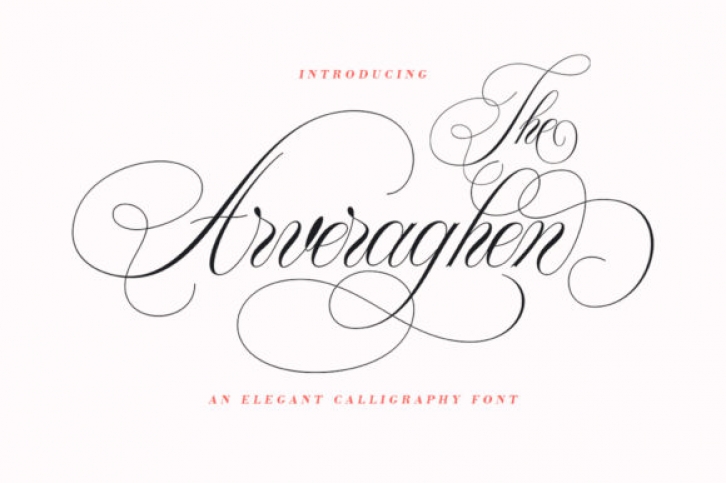
Arveraghen is a delicate and elegant handwritten font. It is PUA encoded which means that you can access all of the glyphs and swashes with ease! It features a varying baseline, smooth lines, gorgeous glyphs and stunning alternates. It looks stunning on wedding invitations, thank you cards, quotes, greeting cards, logos, business cards and every other design which needs a handwritten touch.